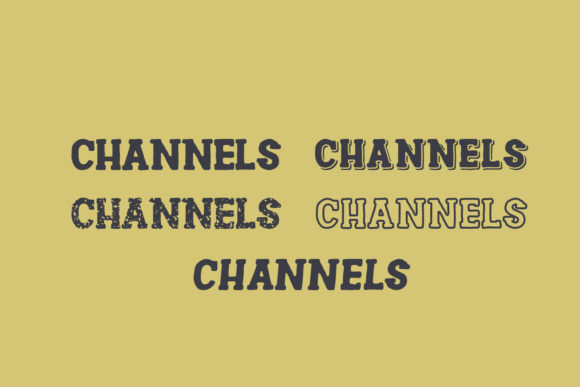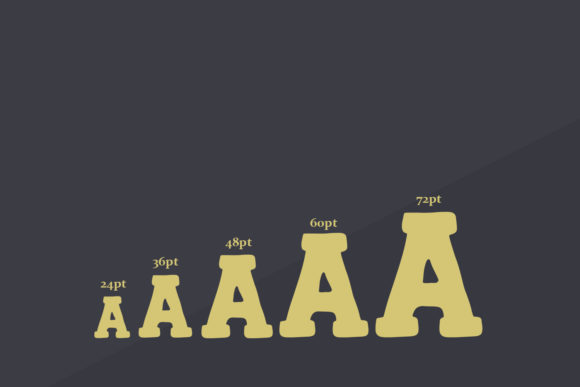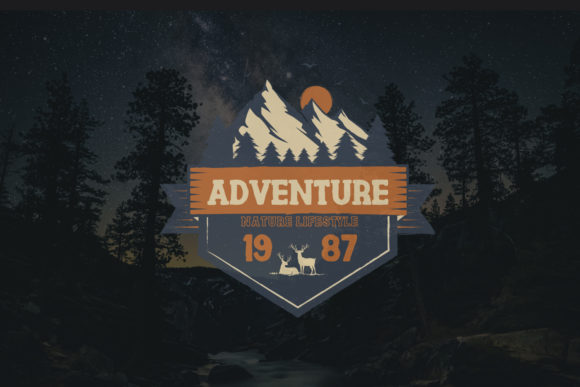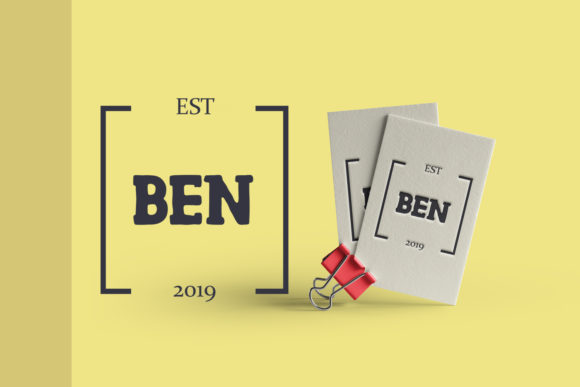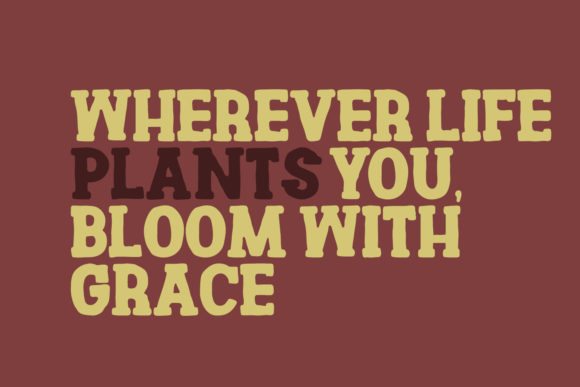
Introducing Channels Family Font: A Retro-Inspired Powerhouse for Your Designs
Are you on the hunt for a font that packs a punch and instantly elevates your design projects? Look no further than the Channels Family Font, a stunning collection of typefaces wrapped in a distinct retro style. This strong and versatile font family is sure to add a powerful vibe to any design, making it a must-have for designers and crafters alike.
The Retro Style that’s Making a Comeback
The Channels Family Font is deeply rooted in the nostalgia of retro design, with a unique twist that sets it apart from other fonts in the same genre. Its distinct style is reminiscent of classic signage, posters, and logos from the 80s and 90s, but with a modern edge that makes it perfect for contemporary design projects. Whether you’re working on a branding project, a website, or a craft, this font family is sure to bring a touch of vintage flair to your work.
A Family of Fonts for Endless Possibilities
One of the standout features of the Channels Family Font is its versatility. This font family includes multiple variations, each with its own unique character and personality. From bold and chunky to sleek and refined, there’s a Channels font to suit every design need. Whether you’re looking to create a statement piece or a more subtle design, this font family has got you covered.
Key Features of Channels Family Font
- Retro-inspired design: A unique and stylish font family that’s perfect for designers looking to add a touch of nostalgia to their work.
- Multiple font variations: Includes several font styles to suit different design needs, from bold and chunky to sleek and refined.
- High-quality design: Carefully crafted to ensure optimal legibility and style, making it perfect for both digital and print designs.
Why Designers and Crafters Love Channels Family Font
So, what makes Channels Family Font a favorite among designers and crafters? For starters, its unique retro style sets it apart from more generic fonts, allowing designers to create truly one-of-a-kind designs. Additionally, its versatility and range of font variations make it a go-to choice for a wide range of projects, from branding and advertising to crafting and DIY projects.
Whether you’re working on a professional design project or a personal craft, Channels Family Font is the perfect choice. Here are just a few examples of projects where this font family shines:
- Branding and logos: Create a lasting impression with a bold and eye-catching logo that showcases your brand’s personality.
- Signage and posters: Grab attention with a retro-inspired sign or poster that’s sure to stand out.
- Web design: Add a touch of nostalgia to your website with a unique and stylish font that’s sure to engage visitors.
- Crafting and DIY projects: Use Channels Family Font to add a personal touch to your crafting and DIY projects, from papercraft to woodworking.
Get Ready to Elevate Your Designs with Channels Family Font
In conclusion, Channels Family Font is a powerful and versatile font family that’s perfect for designers and crafters looking to add a touch of retro flair to their work. With its unique style, multiple font variations, and high-quality design, this font family is sure to elevate your designs and help you stand out from the crowd. So why wait? Get your hands on Channels Family Font today and start creating amazing designs that are sure to impress.